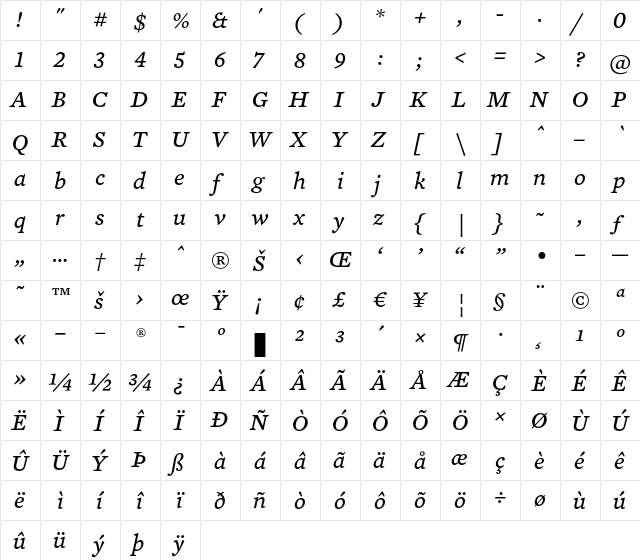
Mercury Text G4 Italic
Design Context for Mercury Text G4 Typeface
Mercury Text G4 takes a measured approach to typography — its balanced proportions and neutral character make it a reliable workhorse for both digital and print work. The dynamic lean of this cut emphasises speed and emphasis in any layout.
Pro Tip: Try Mercury Text G4 for annotation and caption copy alongside an upright companion — the contrast in angle creates a dynamic but ordered typographic system.